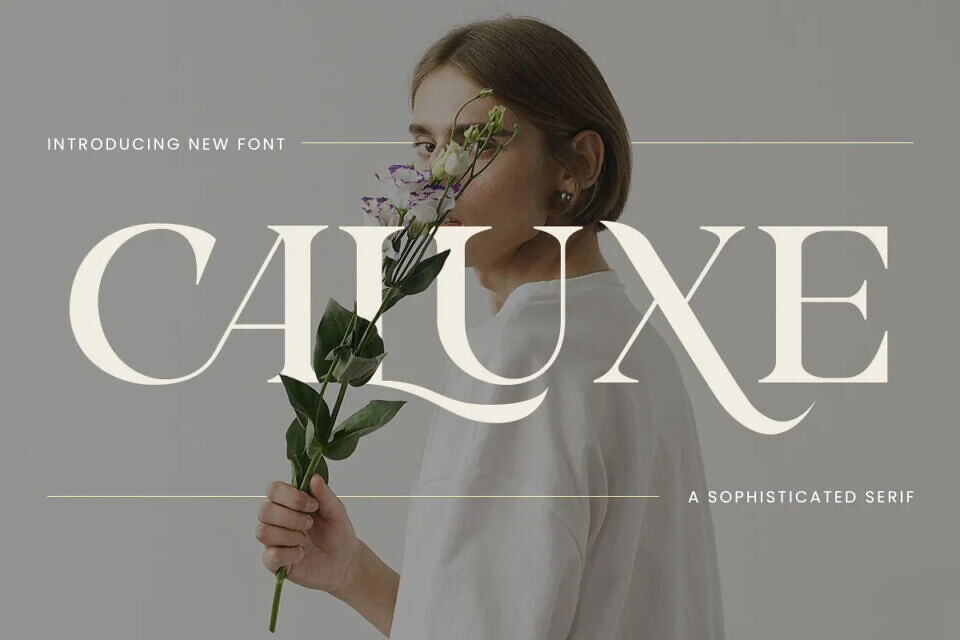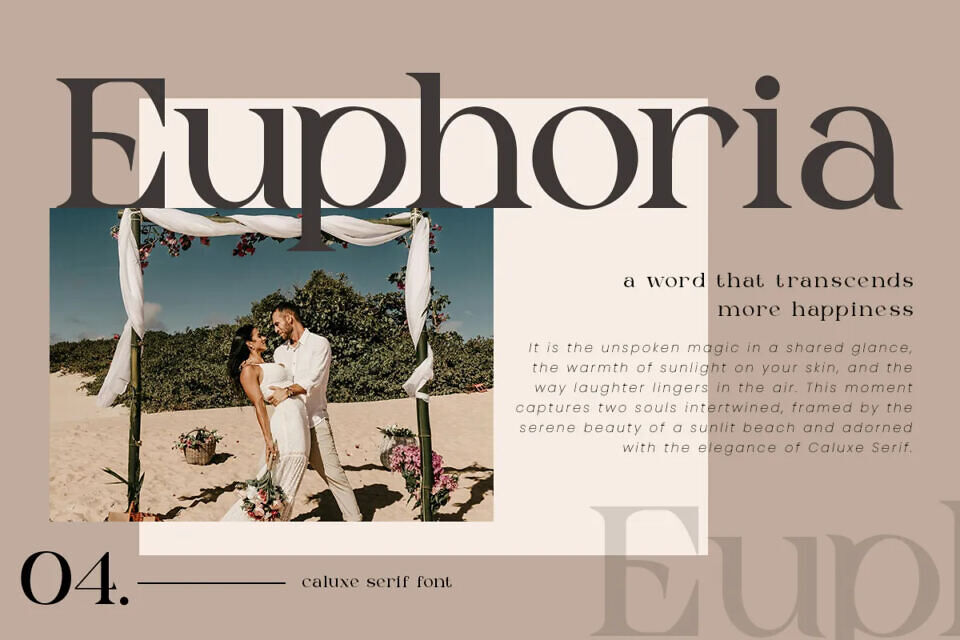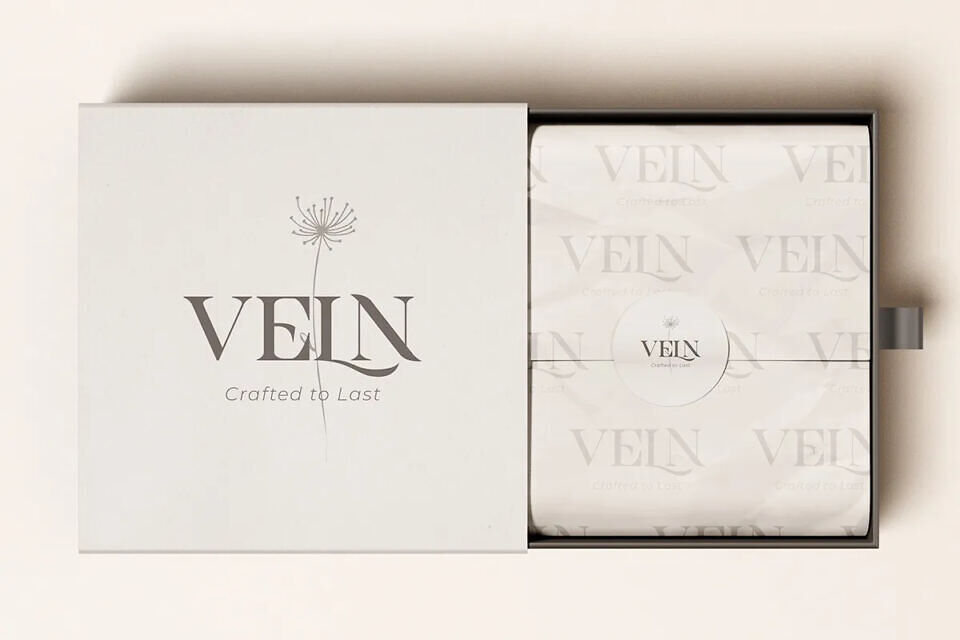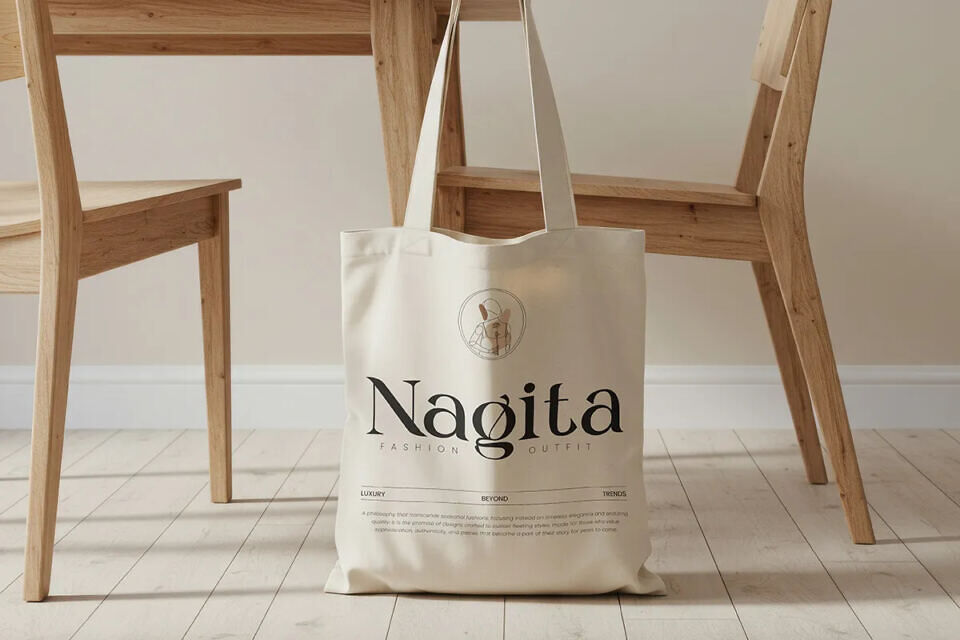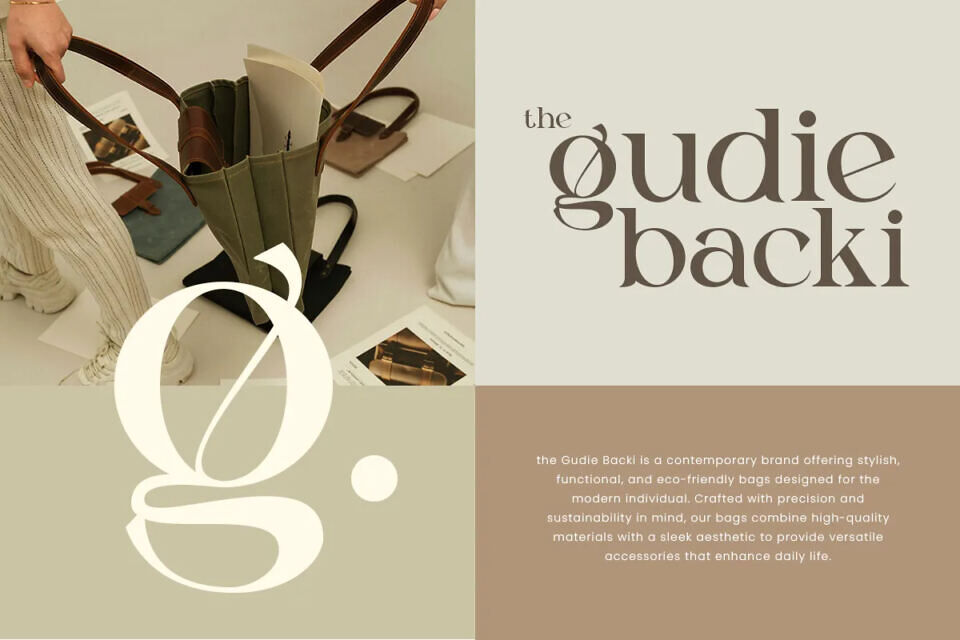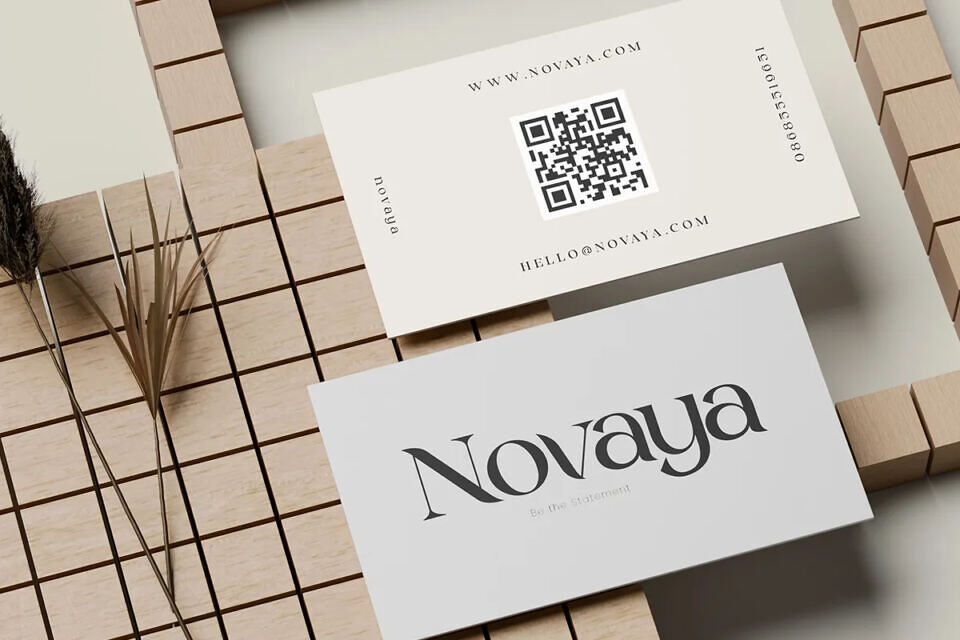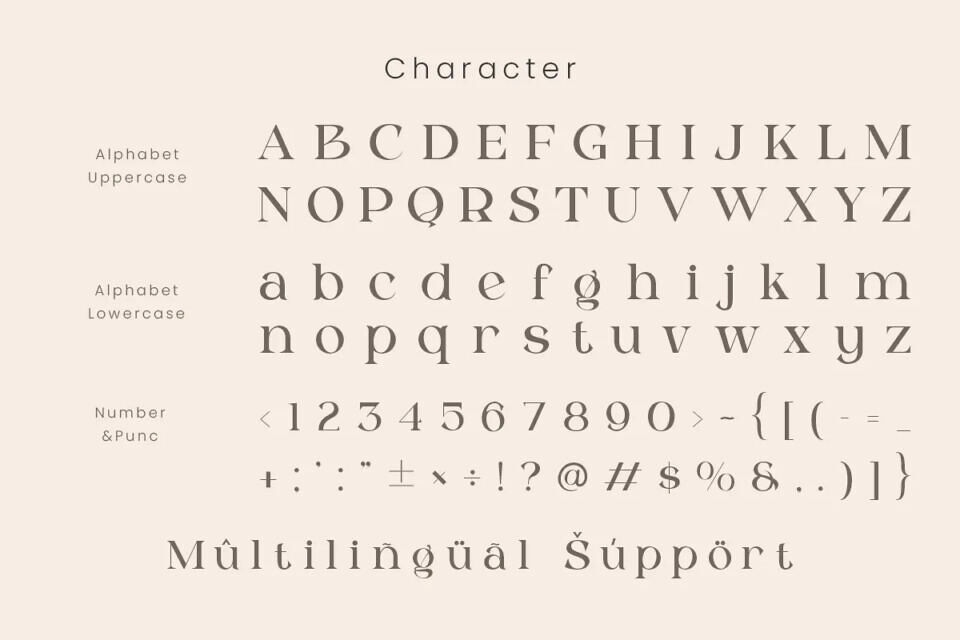
Caluxe Font
Caluxe is a modern luxury serif font that blends bold elegance with timeless sophistication. Its refined letterforms, graceful curves, and sharp contrasts create a polished aesthetic ideal for high-end branding, editorial layouts, product packaging, and more.
Perfect for logos, fashion magazines, wedding stationery, or digital design, it adapts seamlessly to modern trends while maintaining a classic feel. Caluxe isn’t just a font—it’s a statement of style and prestige, crafted to elevate any creative project.